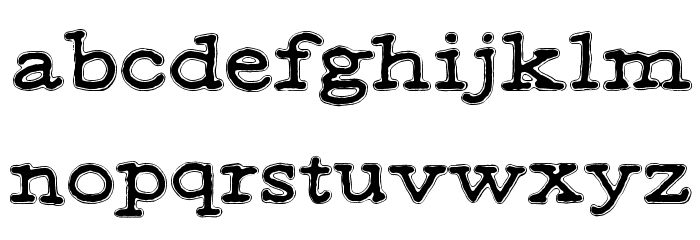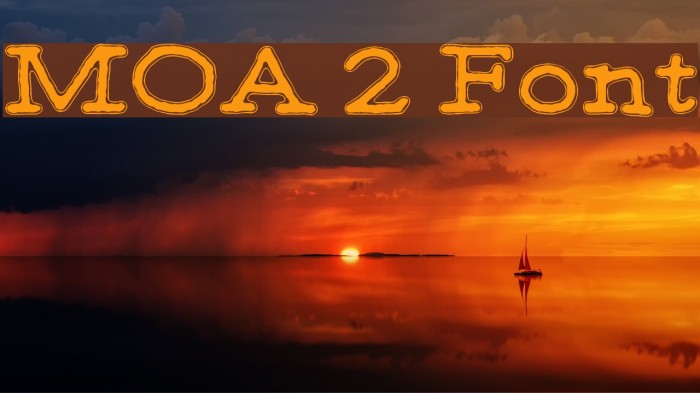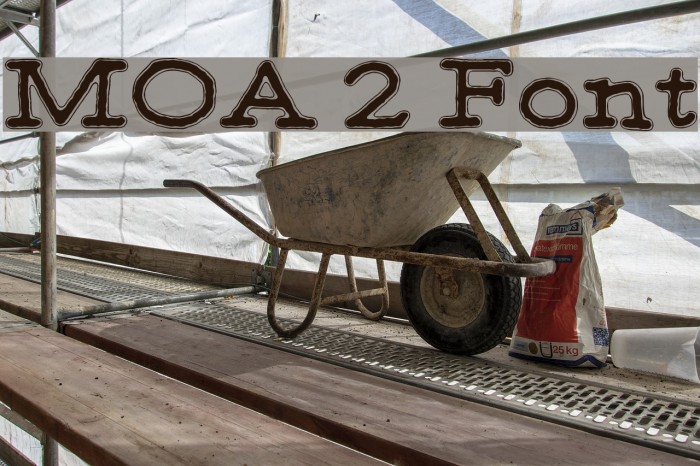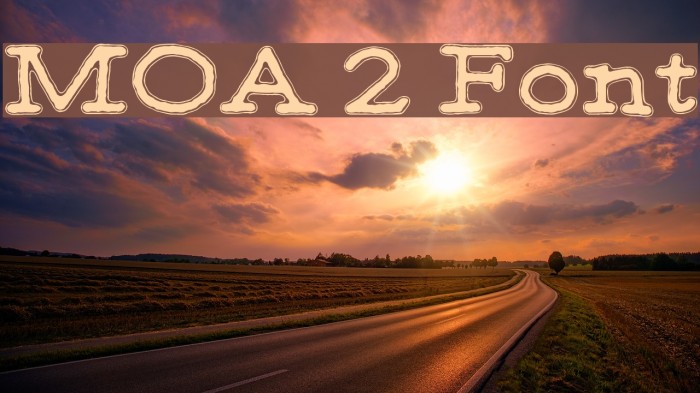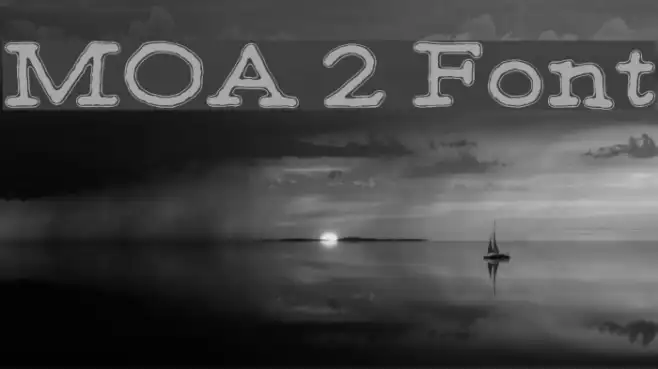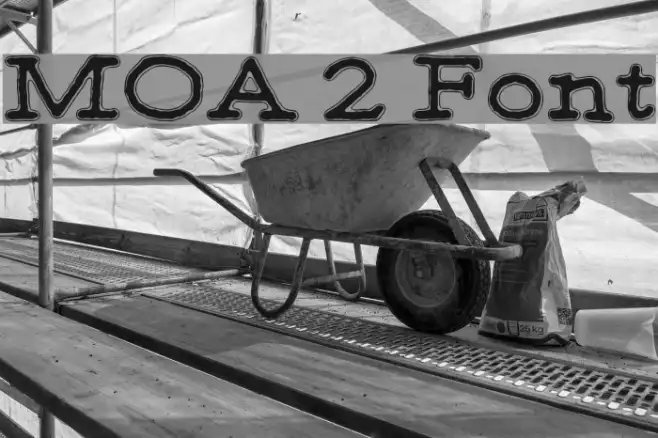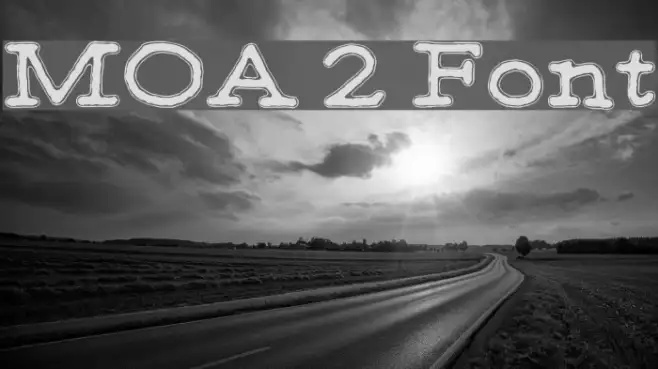
MOA 2 Font
This font features a bold, decorative style with a unique outline effect that gives each character a distinct, shadowed appearance. The uppercase and lowercase letters maintain a consistent width, with rounded edges and a playful, slightly whimsical design. The numerals and special characters follow the same stylistic approach, ensuring uniformity across all glyphs. The font's boldness and decorative nature make it stand out, while the outlined effect adds depth and dimension, making it suitable for eye-catching designs.
A bold, decorative font with a unique outline effect and playful design.
- Proposed Projects: Ideal for posters, headlines, branding, and any project requiring a bold, eye-catching font.